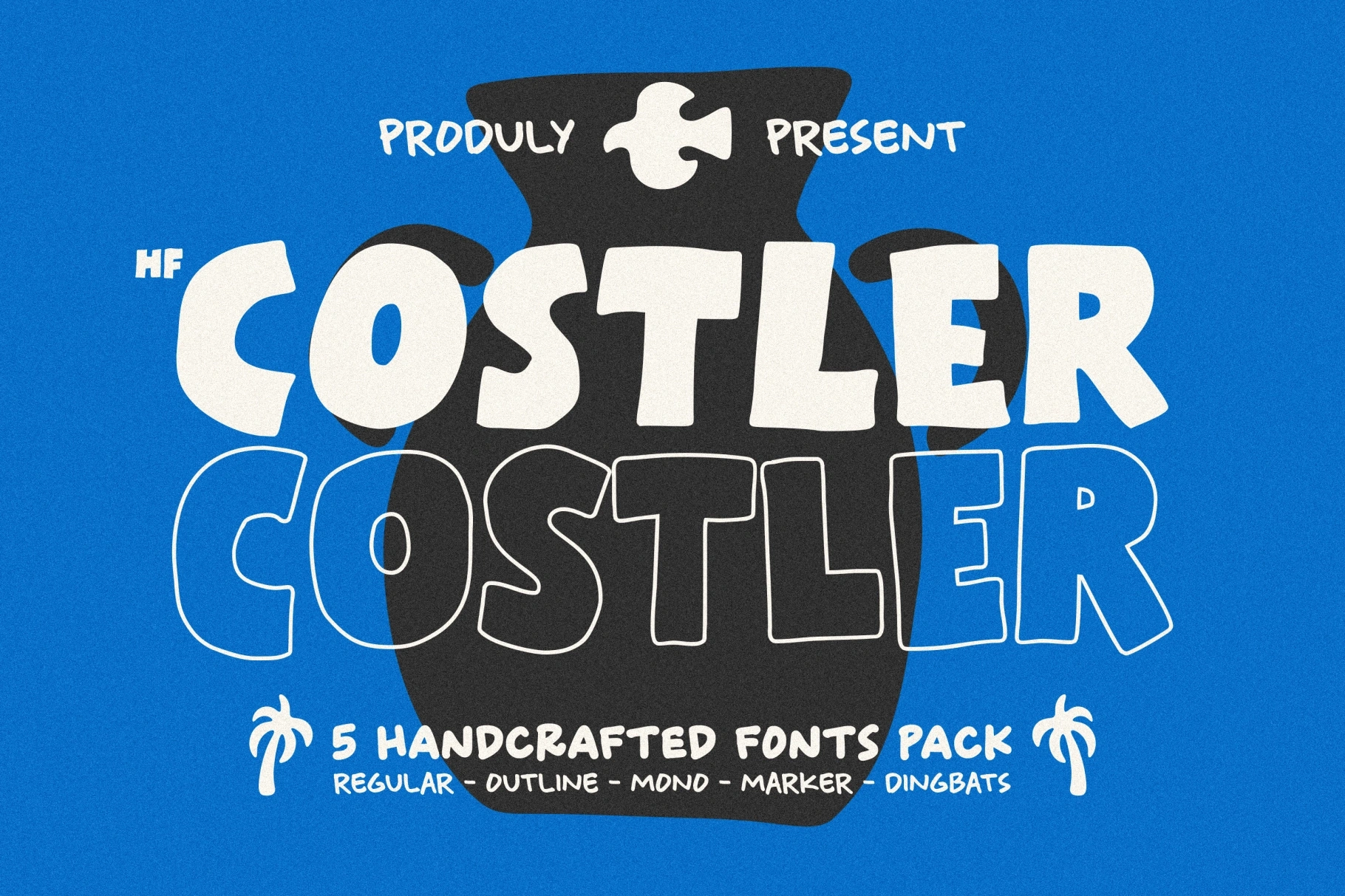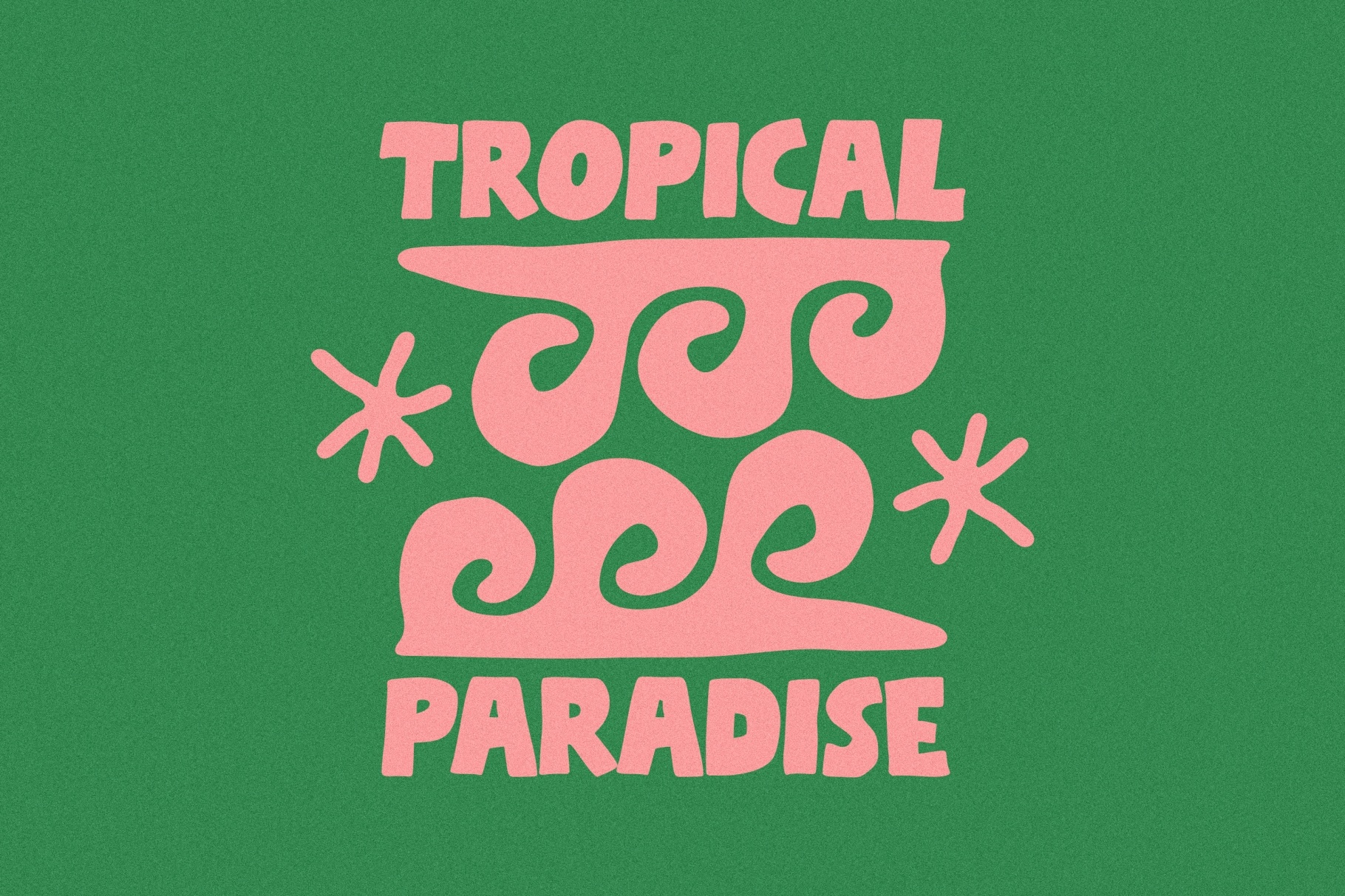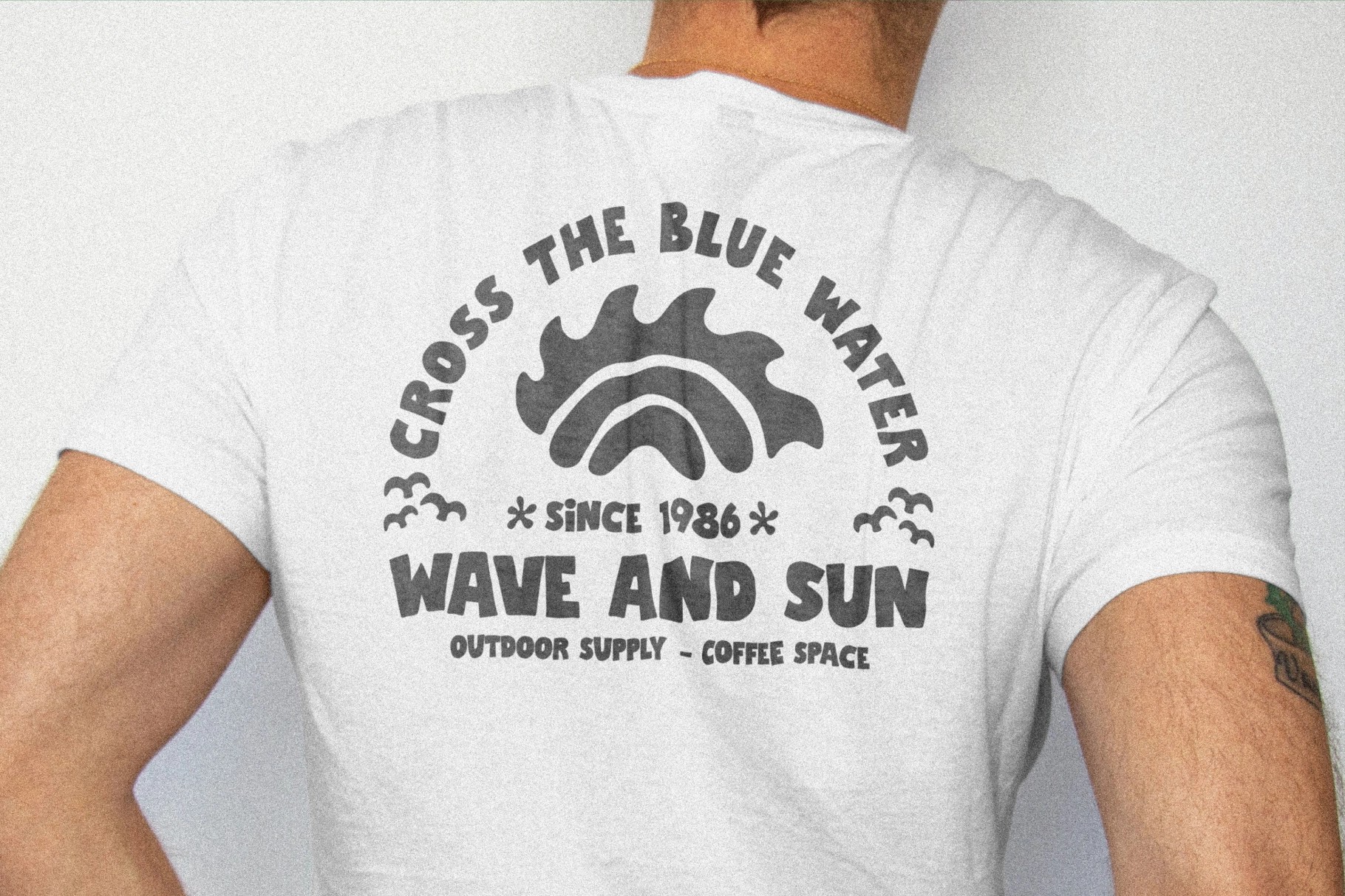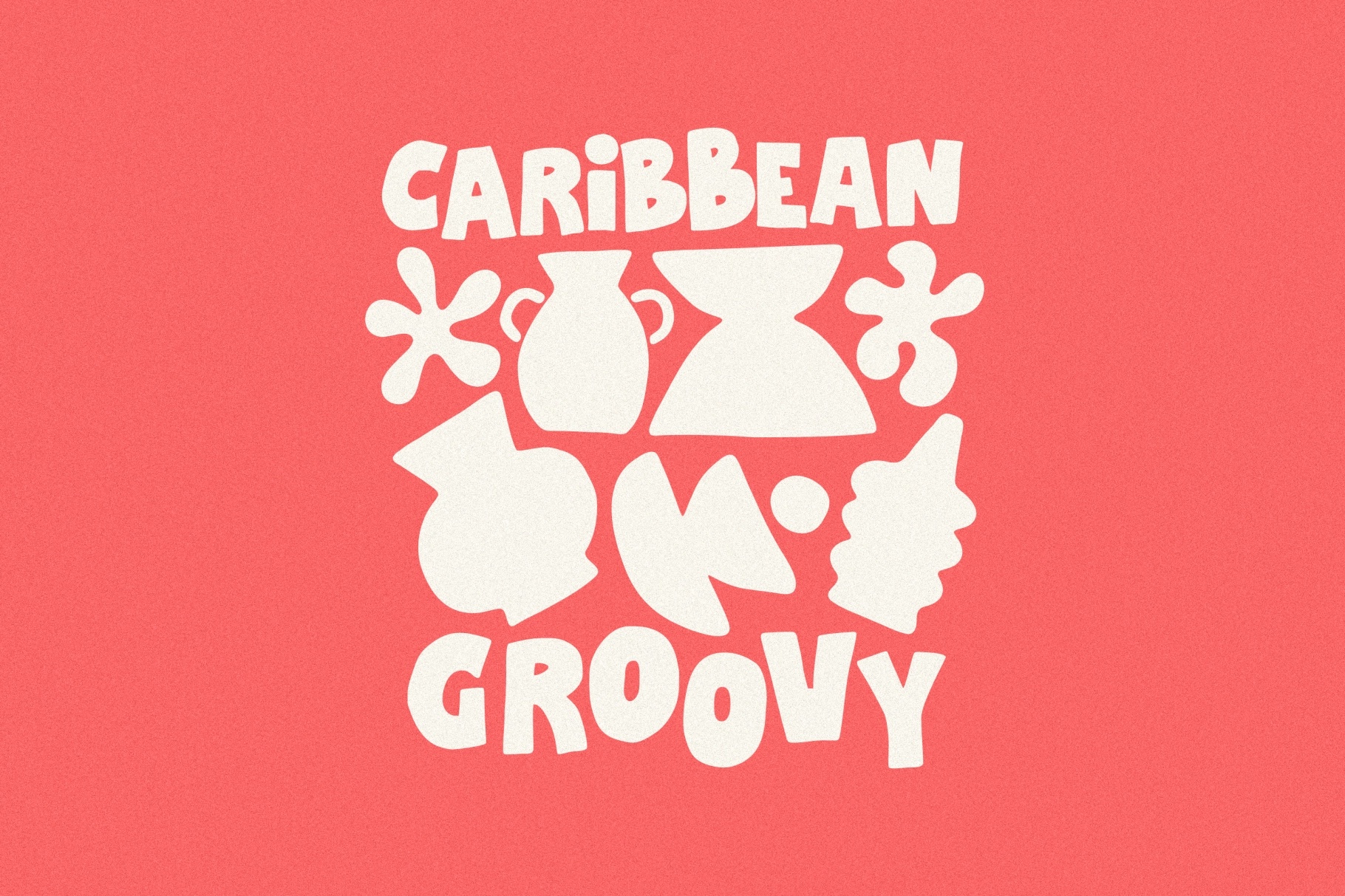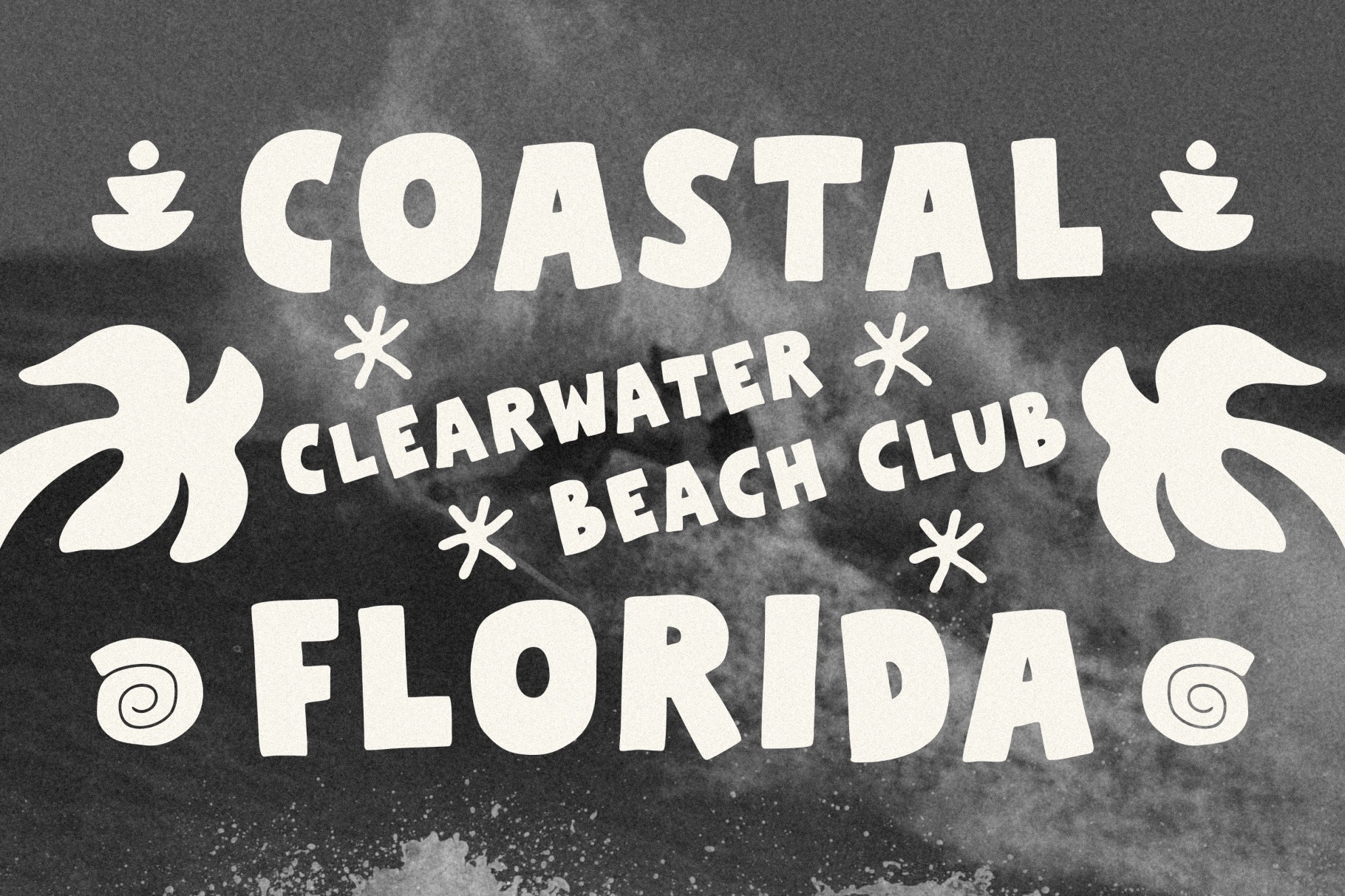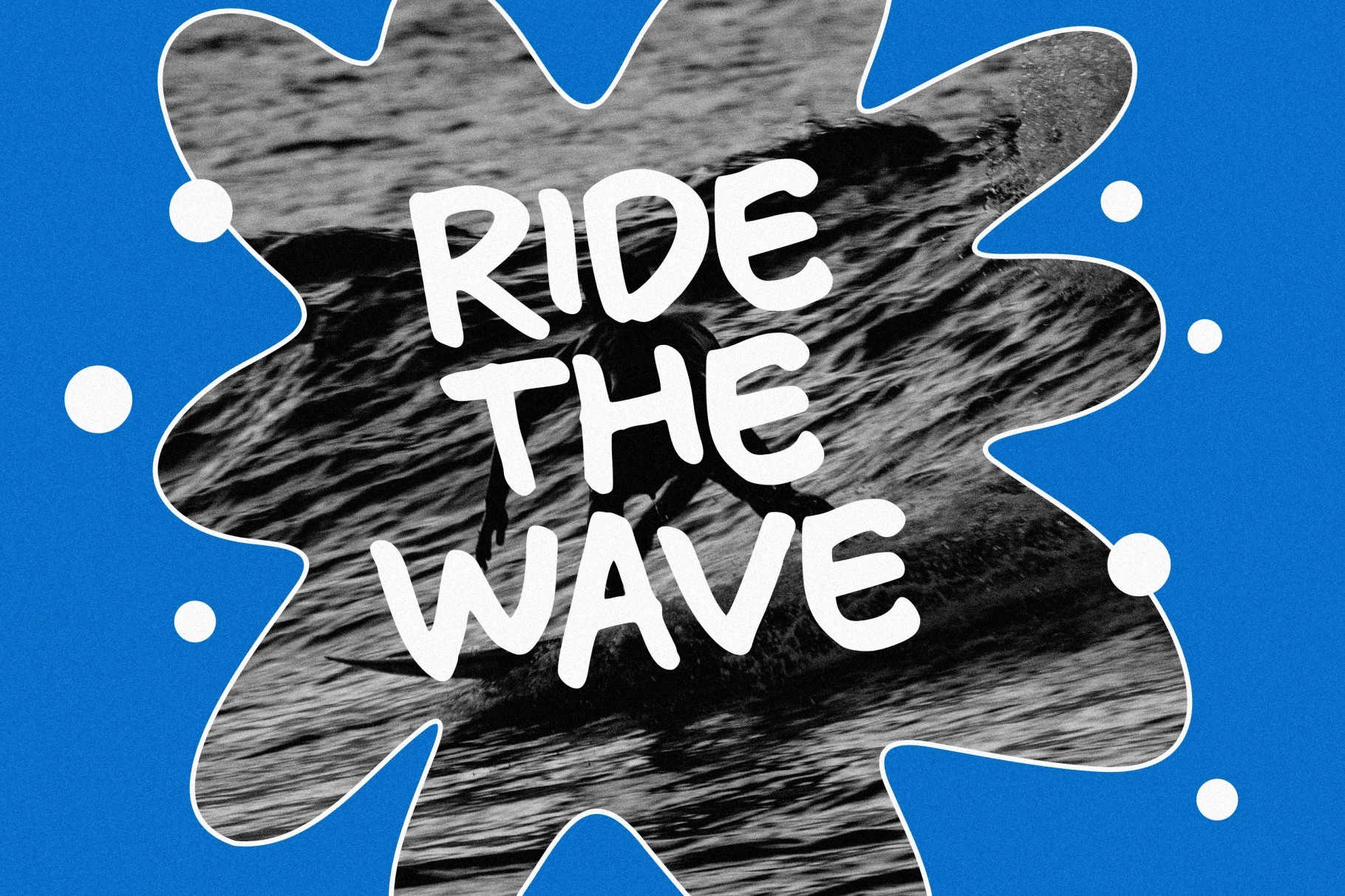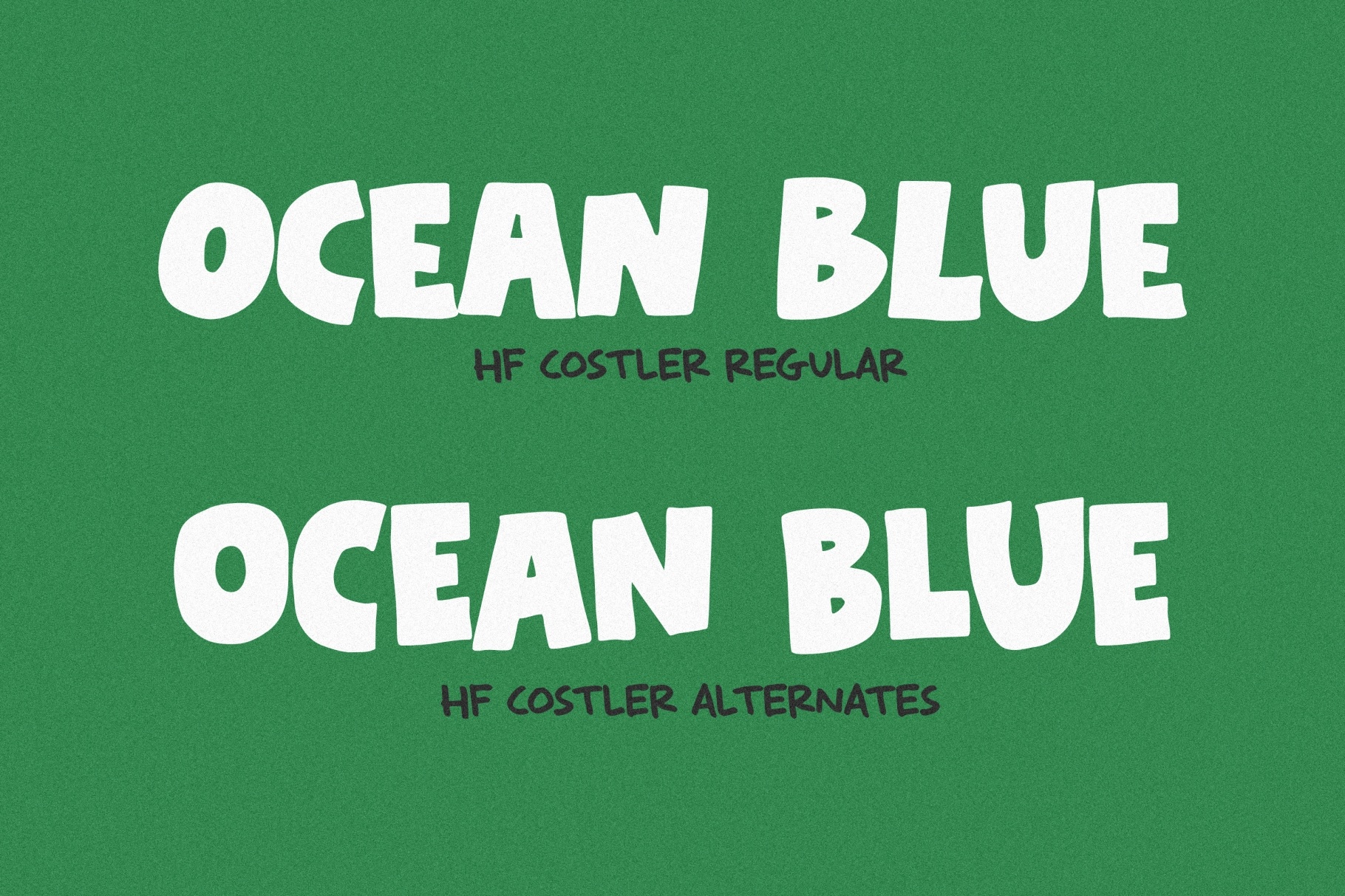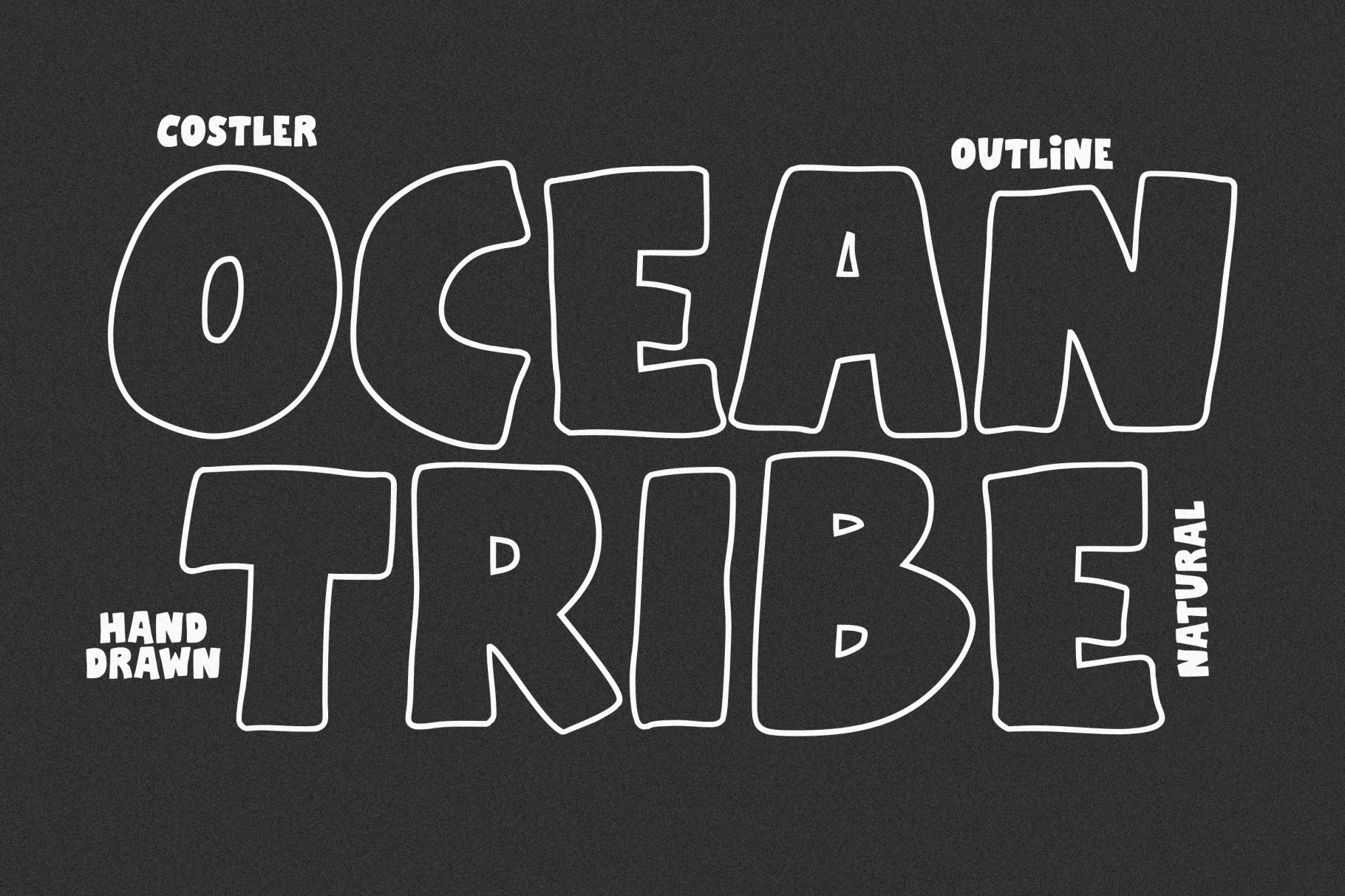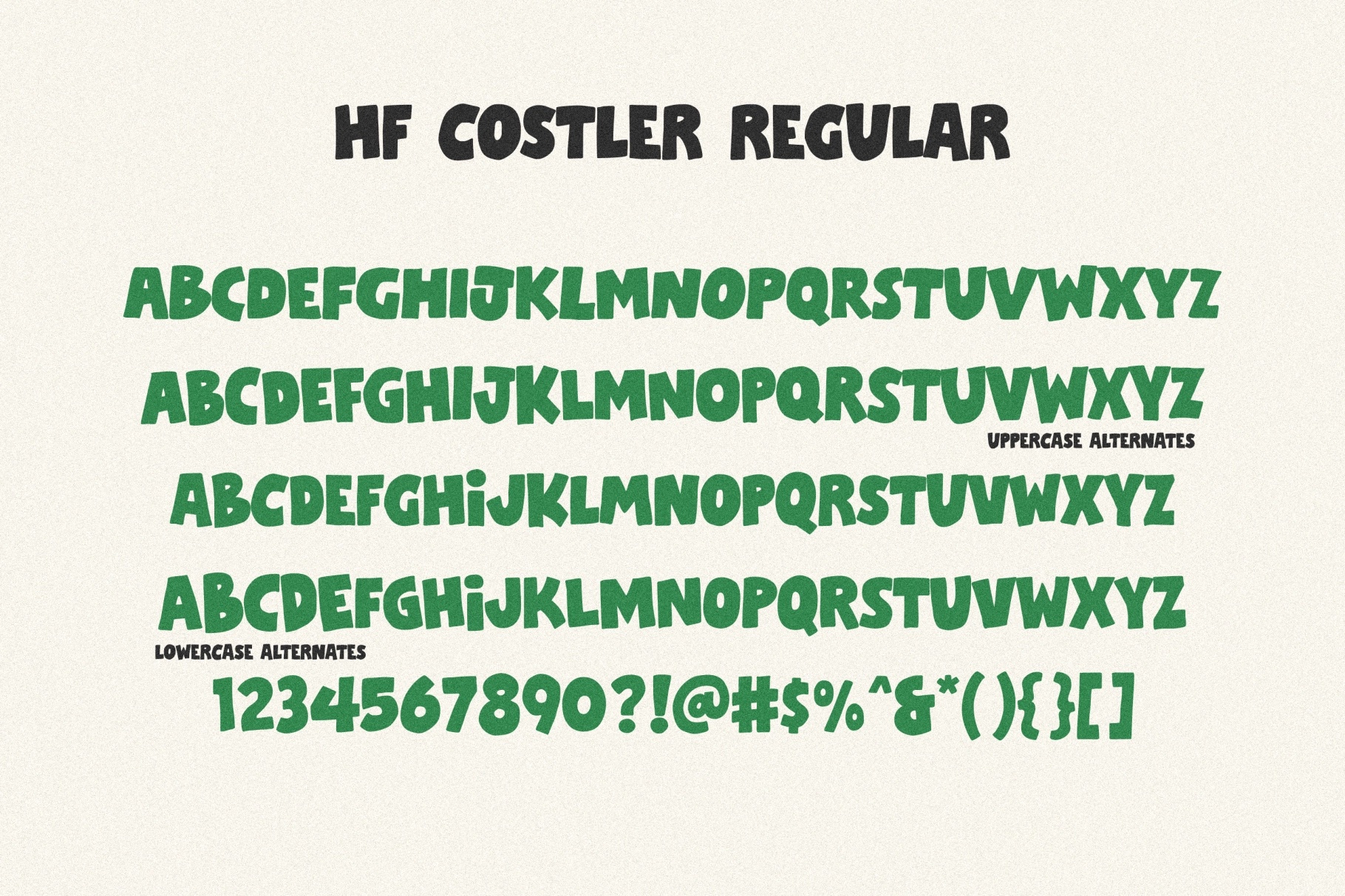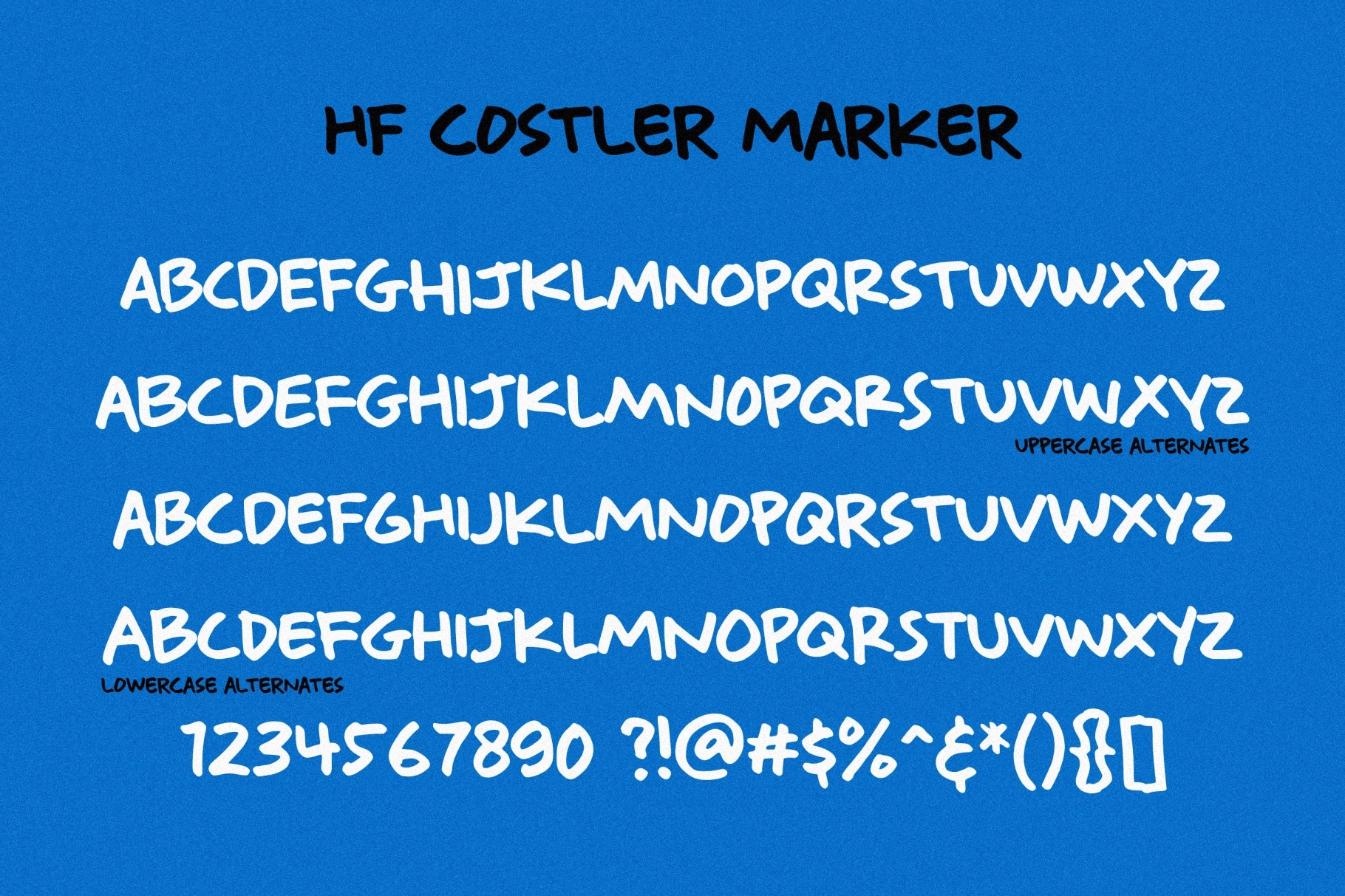
HF Costler - Hand Drawn Font Pack
Marker
Dingbats
Mono
A hand drawn all-caps font pack with chunky shapes, soft marker strokes, and a casual doodle spirit. The set has a playful voice across solid, outline, mono, marker, and dingbat styles, making it great for bold layouts that need charm, noise, and zero corporate handshake energy.
- 5 styles: Regular, Outline, Mono, Marker, Dingbats
- All-caps letters
- Character alternates
- Hand-drawn style